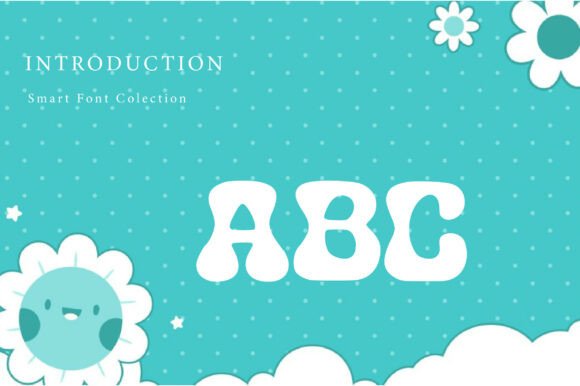
Get Ready to Groove: The Bold Groovy Font is Back in Town
Do you remember the feeling of rummaging through your grandparents’ attic, uncovering a treasure trove of vintage records, posters, and clothes that screamed “Far Out!”? For many creatives, that moment is a spark that ignites a passion for retro-futurism and the freedom of self-expression.
Enter the Bold Groovy Font, a typeface that embodies the carefree spirit of the 1970s. This playful, organic font is designed to capture the essence of a bygone era, with exaggerated curves and a wobbly charm that’s sure to transport your audience to a world of psychedelic wonder. Whether you’re designing for a music festival, a quirky lifestyle brand, or simply want to add some personality to your social media headers, the Bold Groovy Font is the ultimate tool for unleashing your creativity.
As a designer, you’ll love the Bold Groovy Font for its versatility and the way it adds a touch of nostalgia to your work. Experiment with vibrant color palettes, funky geometric patterns, and this font’s unique letterforms to create eye-catching designs that truly stand out from the crowd.
Bold Groovy Font Key Features
- Unique Characteristics: Bold Groovy Font features a distinctive, hand-drawn design with bold lines and rounded edges, giving it a groovy, retro feel.
- Font Style: Bold Groovy Font is available in both regular and bold styles, allowing designers to choose the perfect weight for their design.
- Character Set: Bold Groovy Font includes a comprehensive character set, including uppercase and lowercase letters, numbers, and punctuation marks, as well as special characters and symbols.
Bold Groovy Font Review
Overall, I’d say the Bold Groovy Font is a mixed bag. On the one hand, it’s ✨ incredibly eye-catching and perfect for adding a touch of retro flair to your designs. The bold lines and vibrant colors will surely grab the attention of your audience.
One of the things that I really like about this font is its ✨ versatility. It can be used for a wide range of applications, from posters and flyers to digital products and branding materials. The font is also ✨ highly customizable, allowing you to adjust the colors and layout to suit your specific needs.
What Doesn’t Work So Well
- ⚠️ Limited legibility at smaller font sizes: While the font looks great at larger sizes, it can become difficult to read at smaller sizes. This may be a problem if you’re planning to use the font for body text or other applications where readability is crucial.
- ⚠️ Not suitable for formal or professional designs: The Bold Groovy Font is definitely more suited to creative or playful designs. If you’re looking for a font to use for a formal or professional project, you may want to consider something more subdued.
Overall, I’d recommend the Bold Groovy Font for designers who want to add a touch of personality and whimsy to their designs. Just be sure to use it judiciously and in the right context.
Bold Groovy Font is ideal for:
- Creating eye-catching headlines and titles.
- Adding a touch of nostalgia and retro flair to your designs.
- Designing posters, flyers, and other promotional materials.